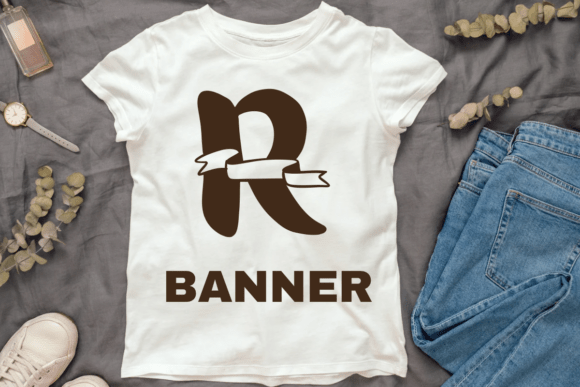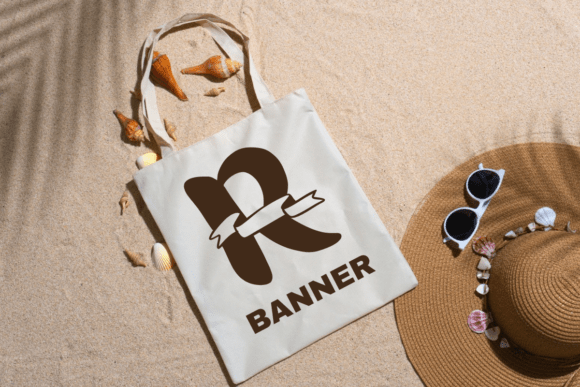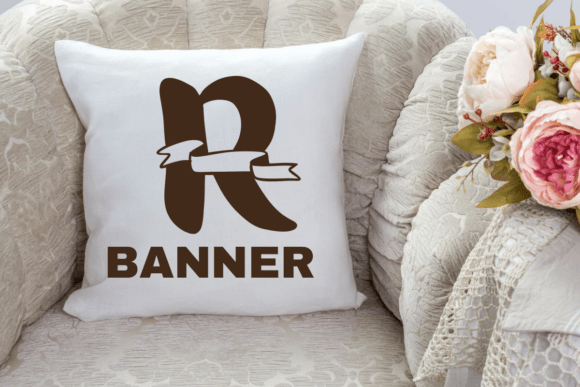
Retro Banner Font – Free Download
Introduction to Retro Banner Font
Retro Banner is a decorative font.
You can use it for taking notes, writing a diary, or making greeting cards However, you can still use it for other designs, such as banners, content, mugs, cards, shirts, stationery, social media posts, and more.
Key Features of Retro Banner Font